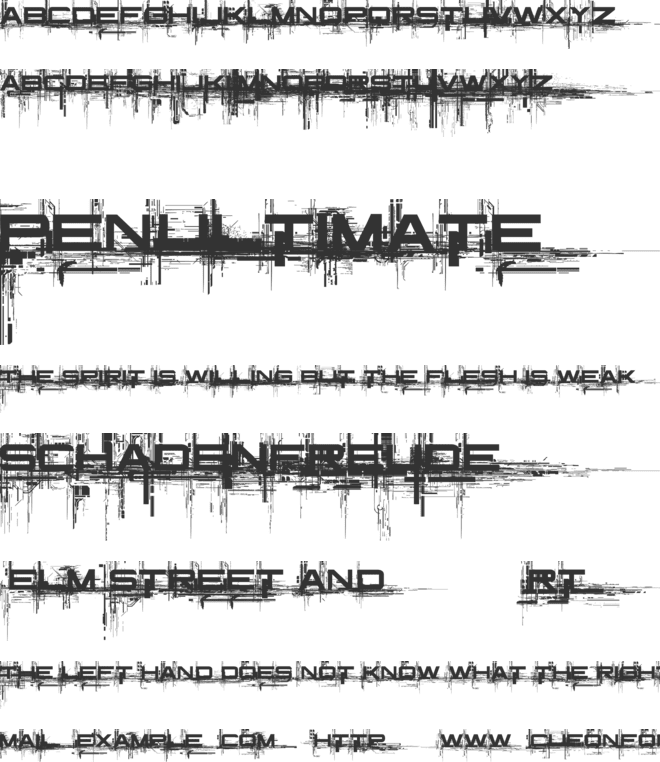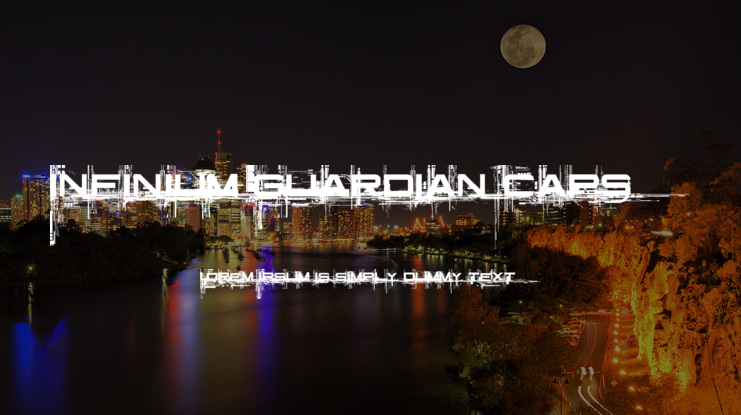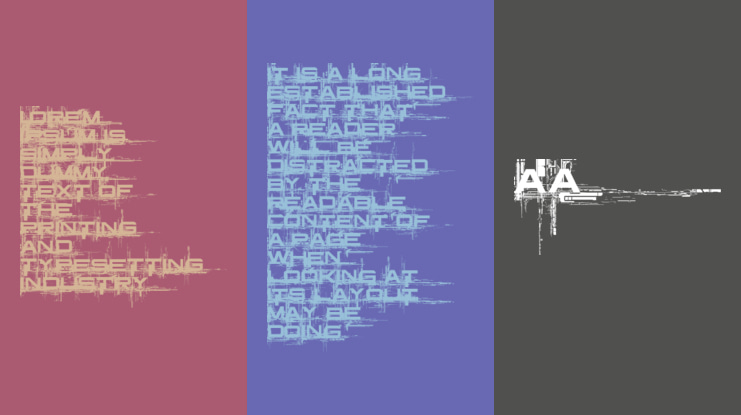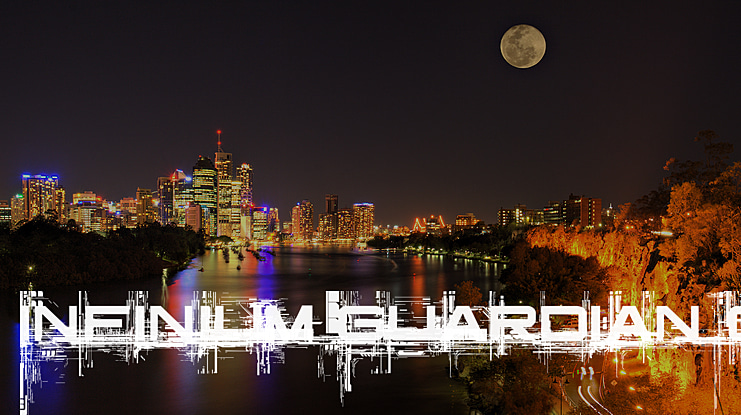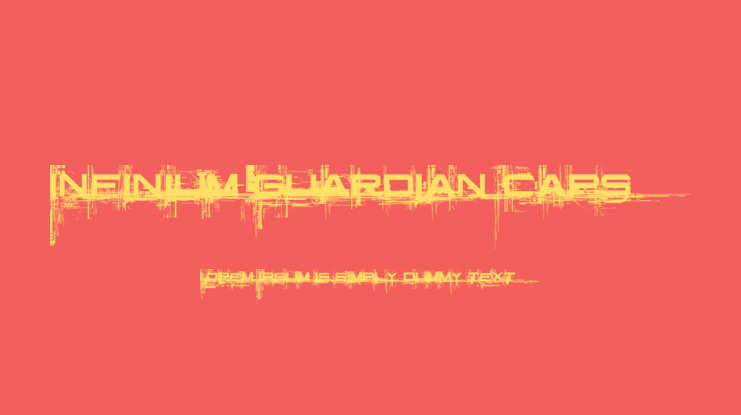
Infinium Guardian Caps Font Family
Please look some speciments for uses and glyphs The poster are reduced, because the original one is too big. You can see the big one in this link http://fav.me/d76809n -- A Techno Typeface for Your Creation Bring Your Creation into The Life Stories Be a witness of This Battle for Everlasting Peace -- Infinium Guardian by Axel Lymphos